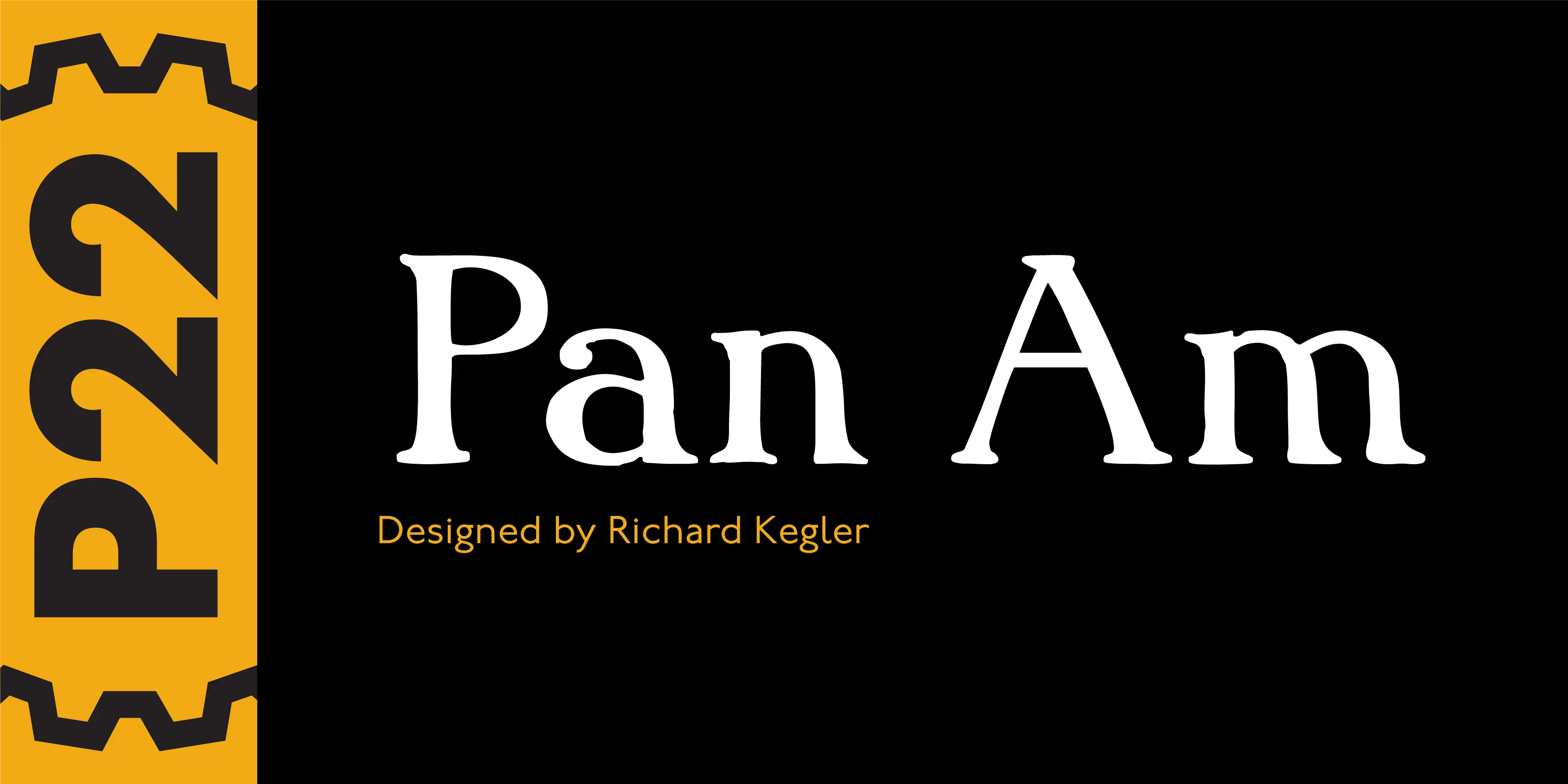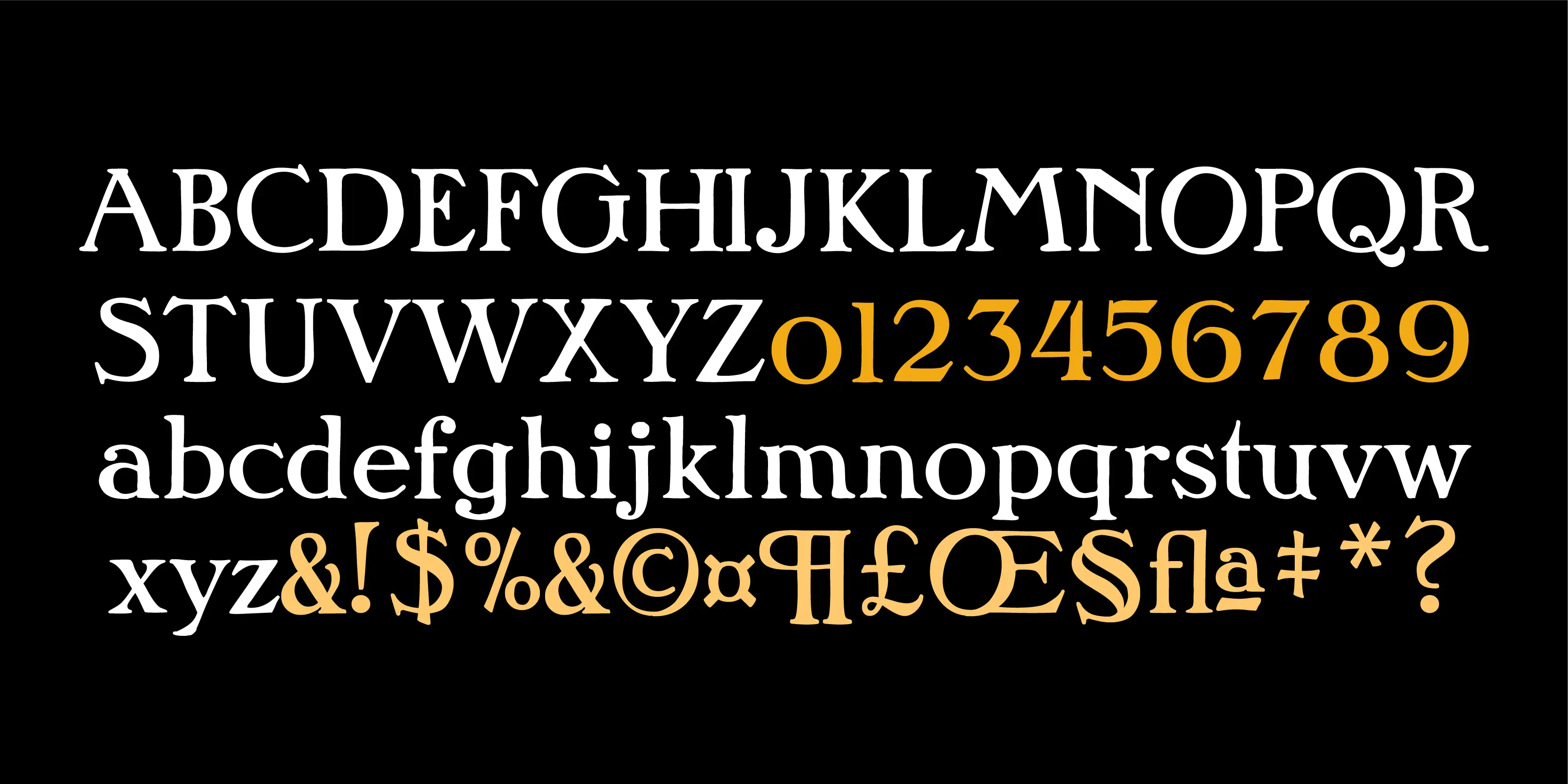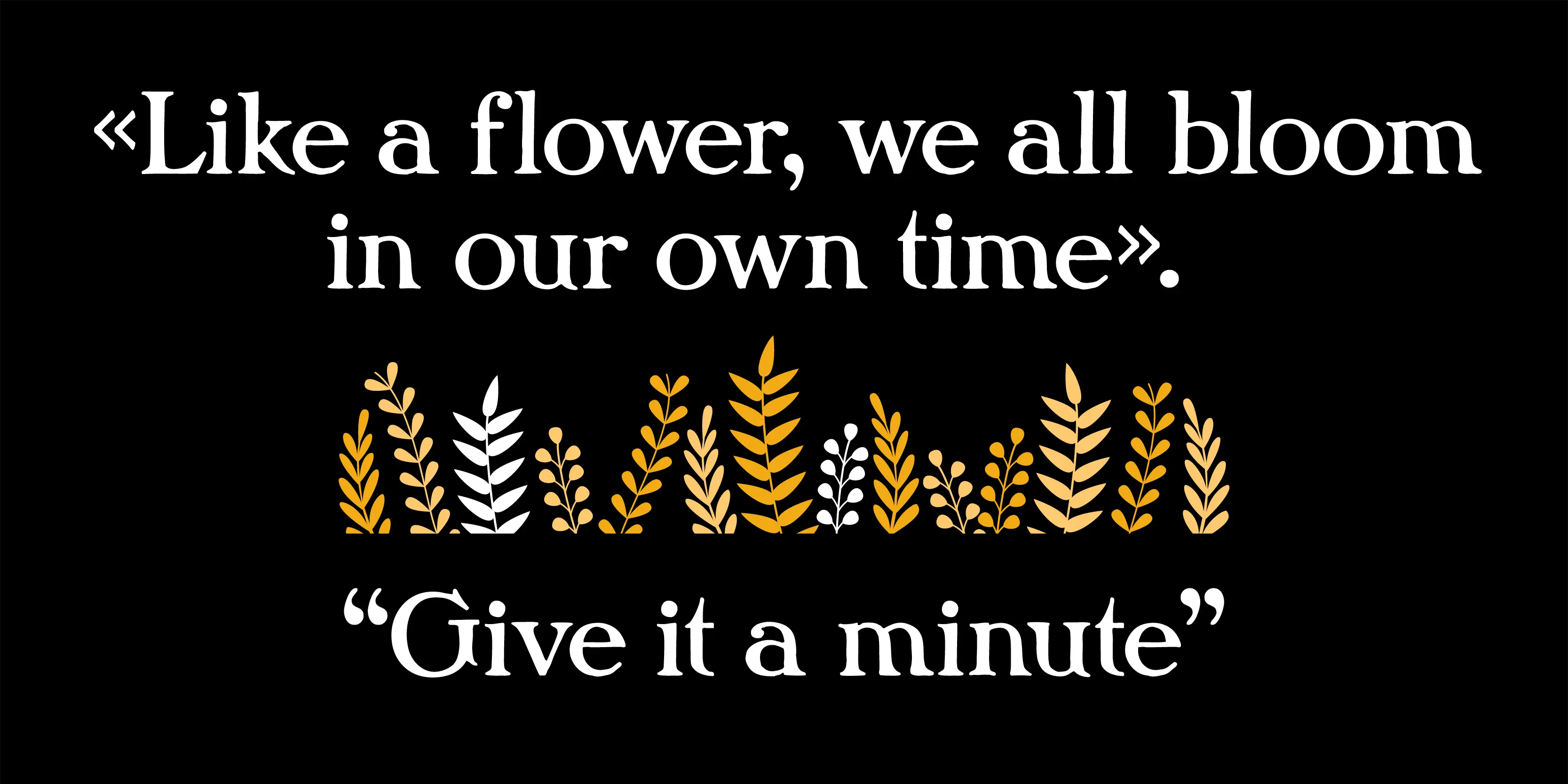
Pan Am Fonts
Pan Am
This font was created to help celebrate the centennial of the Pan-American exposition of 1901 which was held in Buffalo, New York. It is based on a variety of printed ephemera from the exhibition (which incidentally is most noted not for the spectacular electrical illuminations provided by nearby Niagara Falls, but rather for the assassination of President William McKinley).
- Common Ligatures
- Stylistic Alternates